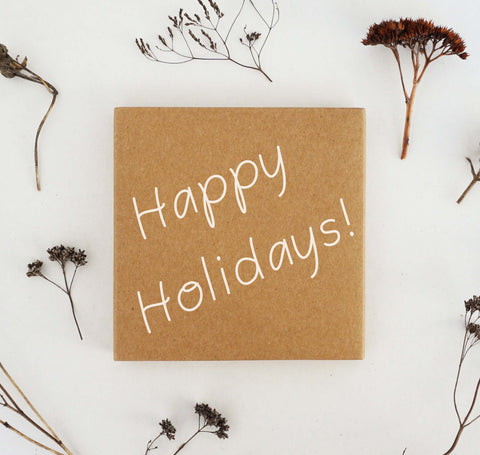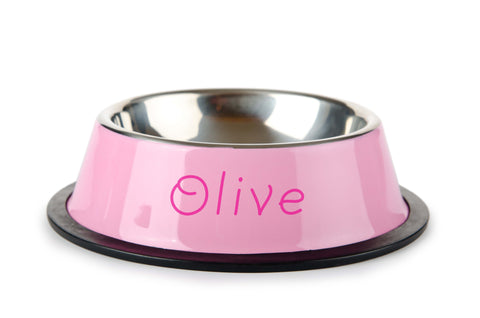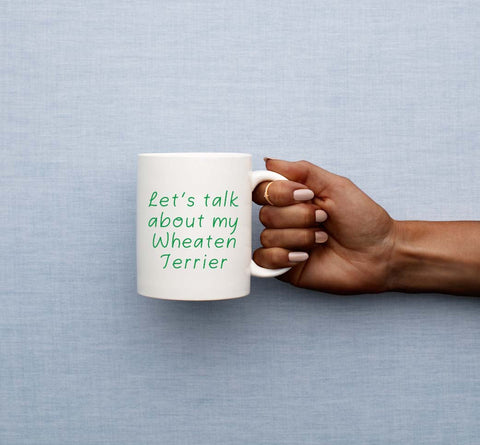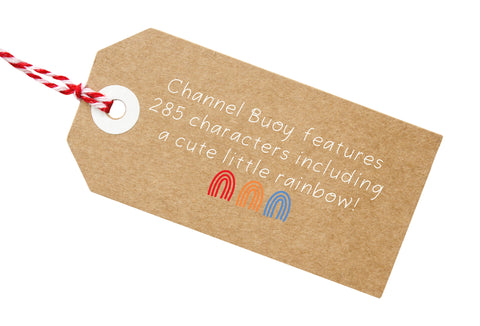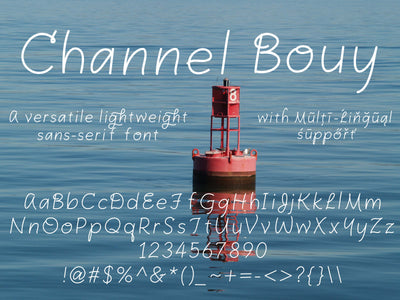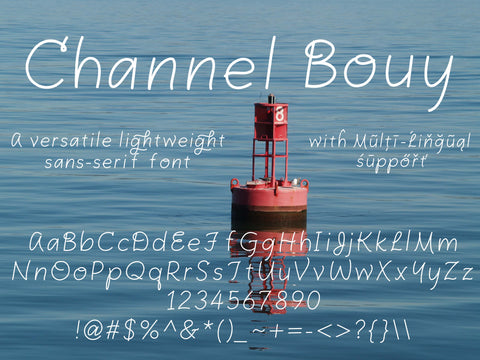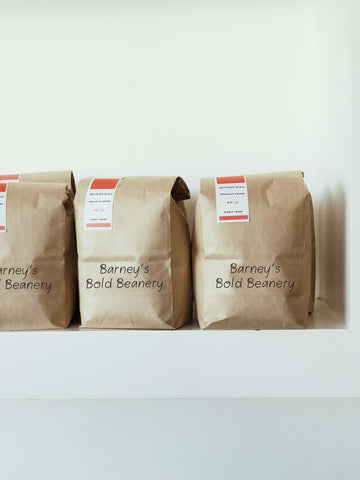
Channel Buoy Sans-Serif Font | 285 Unique Characters | Multilingual Support Commercial Use
"Channel Buoy" Hand Lettered font. Contains a whopping 285 characters including Multi lingual support!
Channel Buoy is a super versatile font, perfect for stationery, content, signage, invitations and just about anything you can think of!